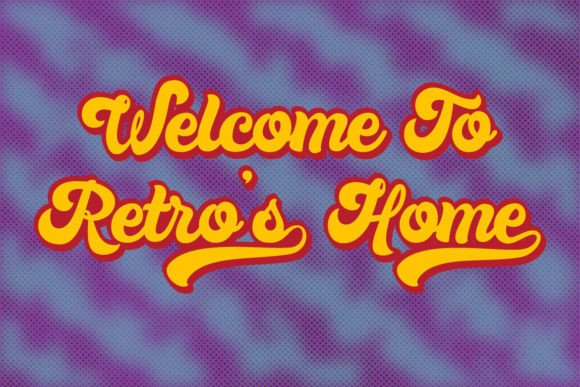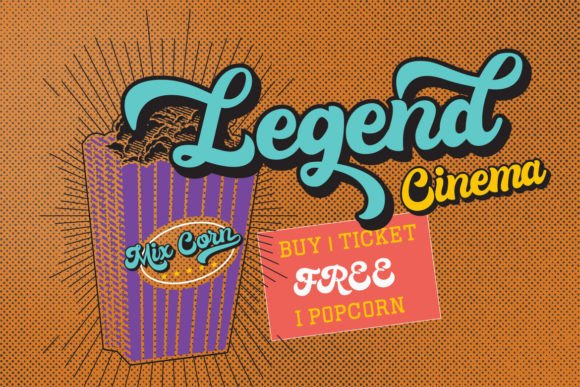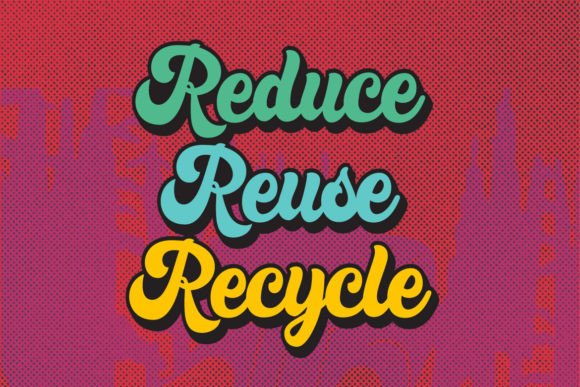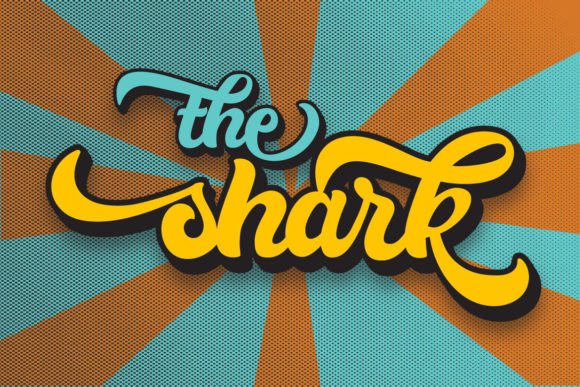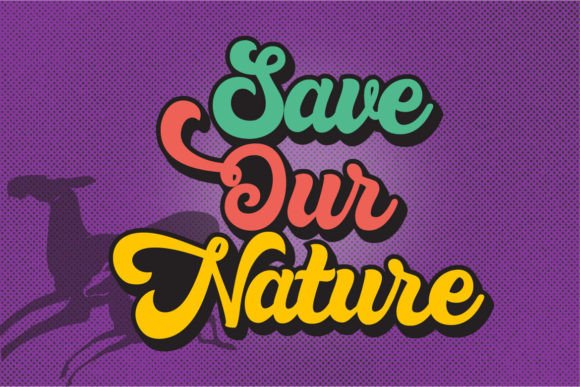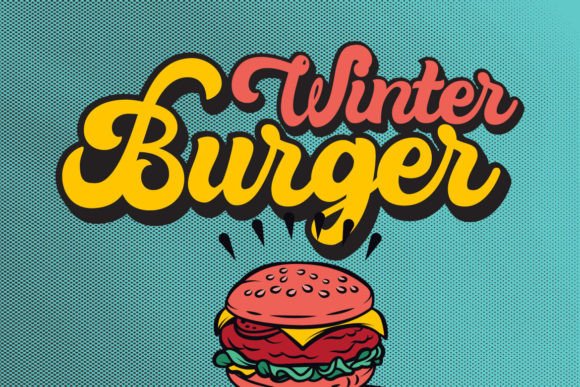
Introducing Antaponi Script Font: Elevate Your Designs with a Cool, Bold, Retro Style
Are you tired of using the same old fonts in your designs? Do you want to add a touch of personality and uniqueness to your creations? Look no further than Antaponi Script Font, a cool, bold, retro-style script display font that is sure to elevate your font library. In this article, we’ll dive into the features and benefits of Antaponi Script Font, and explore how it can be used to take your designs to the next level.
What is Antaponi Script Font?
Antaponi Script Font is a modern script font that draws inspiration from classic retro designs. Its bold and cool style makes it perfect for use in a variety of design projects, from branding and advertising to packaging and digital media. The font features elegant, flowing lines and a distinctive character that sets it apart from more traditional fonts.
Key Features of Antaponi Script Font
- Unique and distinctive design: Antaponi Script Font features a one-of-a-kind design that is sure to grab attention and add personality to your designs.
- Bold and cool style: The font’s bold and cool style makes it perfect for use in a variety of design projects, from bold headlines to elegant text.
- Retro-style script: Antaponi Script Font draws inspiration from classic retro designs, making it perfect for use in vintage-style designs and projects.
- Elegant and flowing lines: The font features elegant, flowing lines that add a touch of sophistication and elegance to your designs.
- Multilingual support: Antaponi Script Font supports multiple languages, making it perfect for use in international design projects.
Benefits of Using Antaponi Script Font
So why should you choose Antaponi Script Font for your design projects? Here are just a few benefits of using this amazing font:
- Adds personality to your designs: Antaponi Script Font is a unique and distinctive font that adds personality and character to your designs.
- Elevates your brand: The font’s bold and cool style makes it perfect for use in branding and advertising projects, helping to elevate your brand and make it stand out.
- Perfect for creative projects: Antaponi Script Font is perfect for use in creative projects, such as packaging, digital media, and art projects.
How to Use Antaponi Script Font
Using Antaponi Script Font is easy. Here are a few tips for incorporating the font into your design projects:
- Use it as a headline font: Antaponi Script Font is perfect for use as a headline font, adding a touch of personality and elegance to your titles and headings.
- Pair it with other fonts: The font pairs well with other fonts, making it perfect for use in combination with other typefaces.
- Experiment with different colors: Antaponi Script Font looks great in a variety of colors, so don’t be afraid to experiment and find the perfect color for your design.
In conclusion, Antaponi Script Font is a cool, bold, retro-style script display font that is sure to elevate your font library. Its unique and distinctive design, bold and cool style, and elegant, flowing lines make it perfect for use in a variety of design projects. Whether you’re a designer, craft, or simply someone who loves typography, Antaponi Script Font is a must-have font that is sure to inspire and delight.